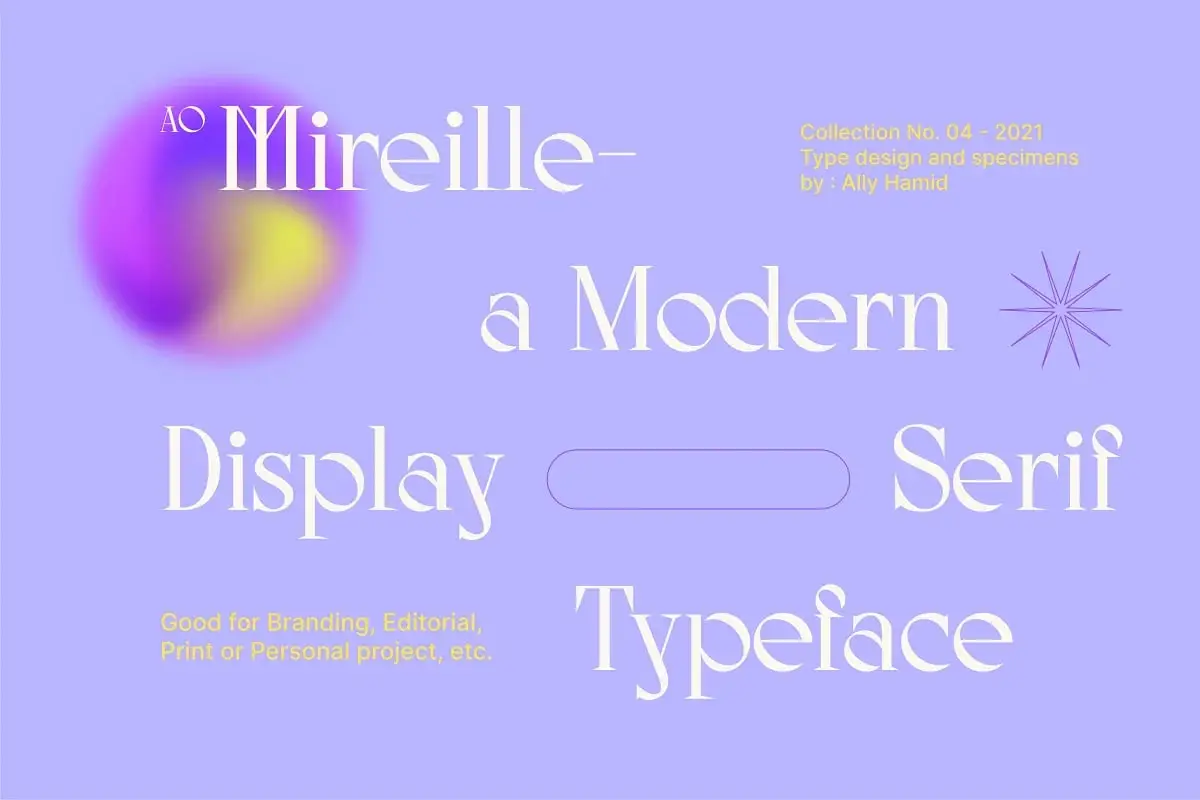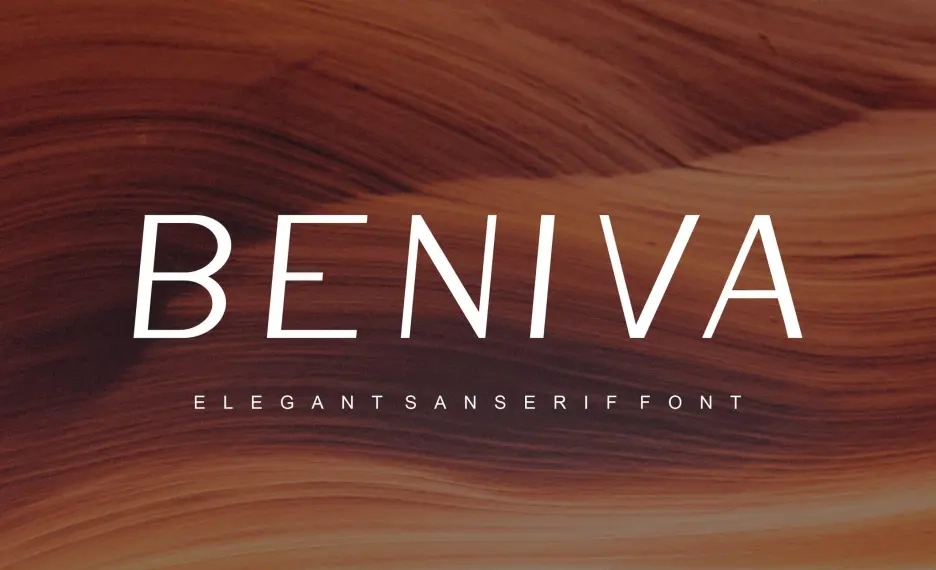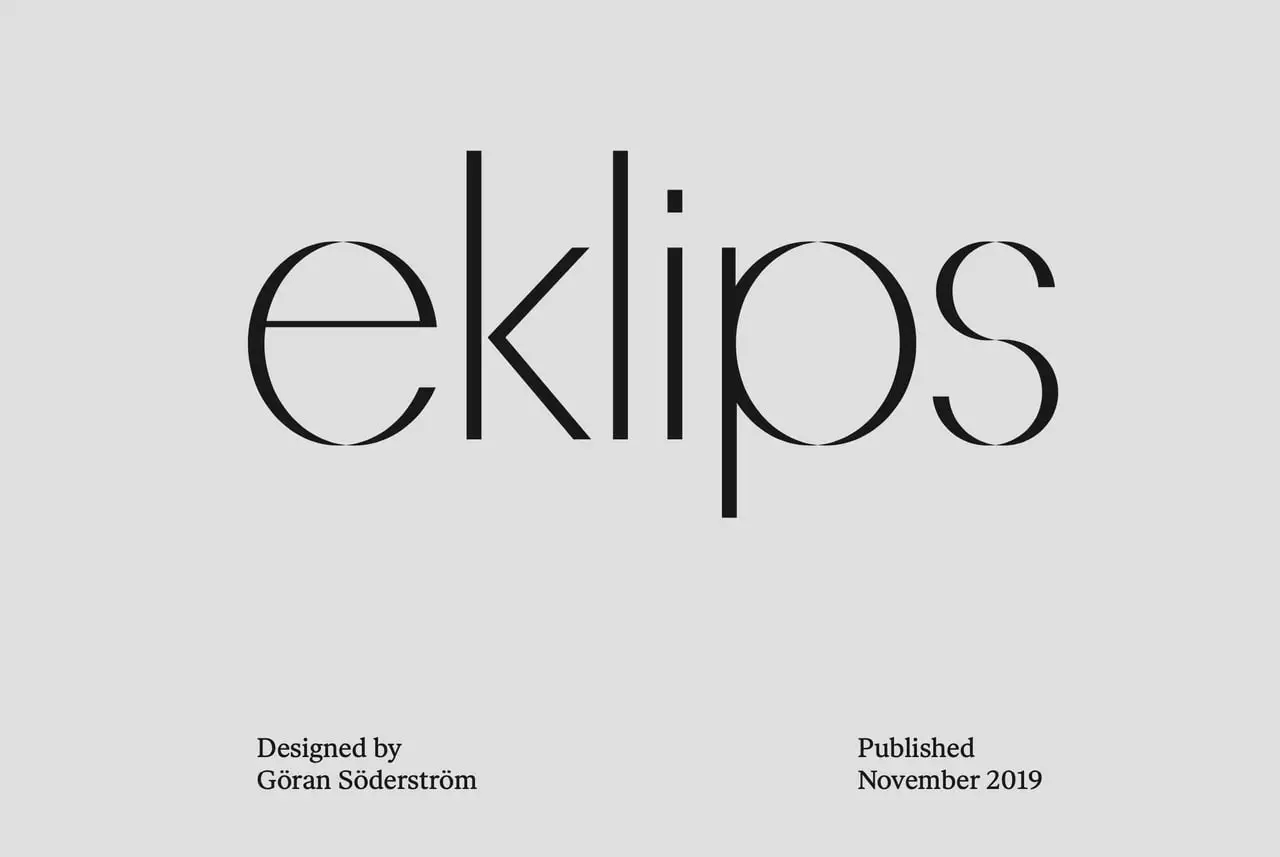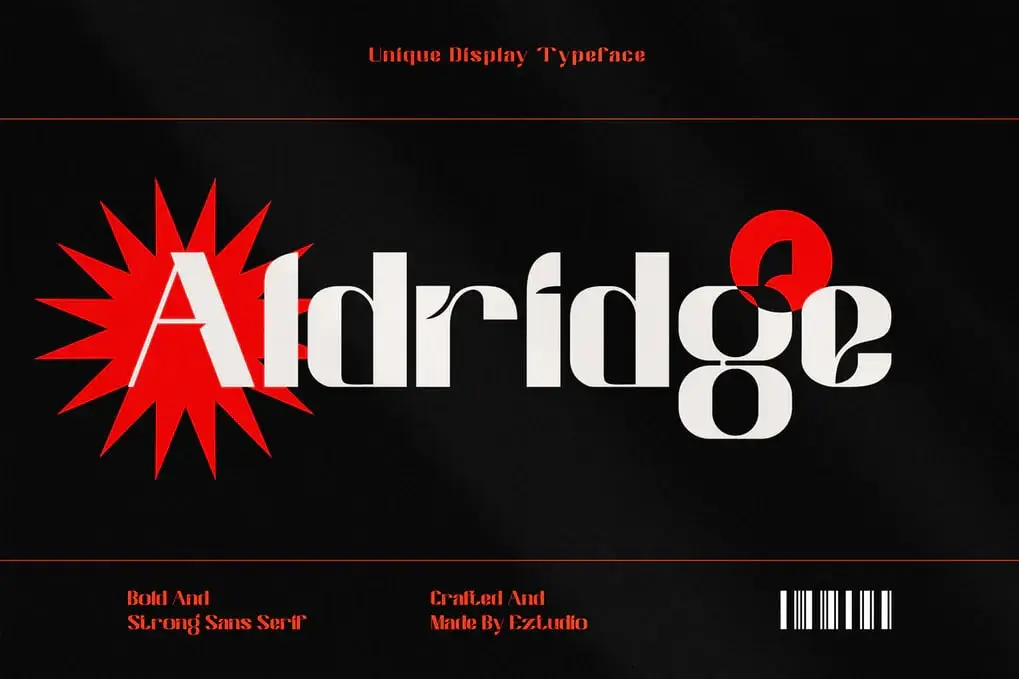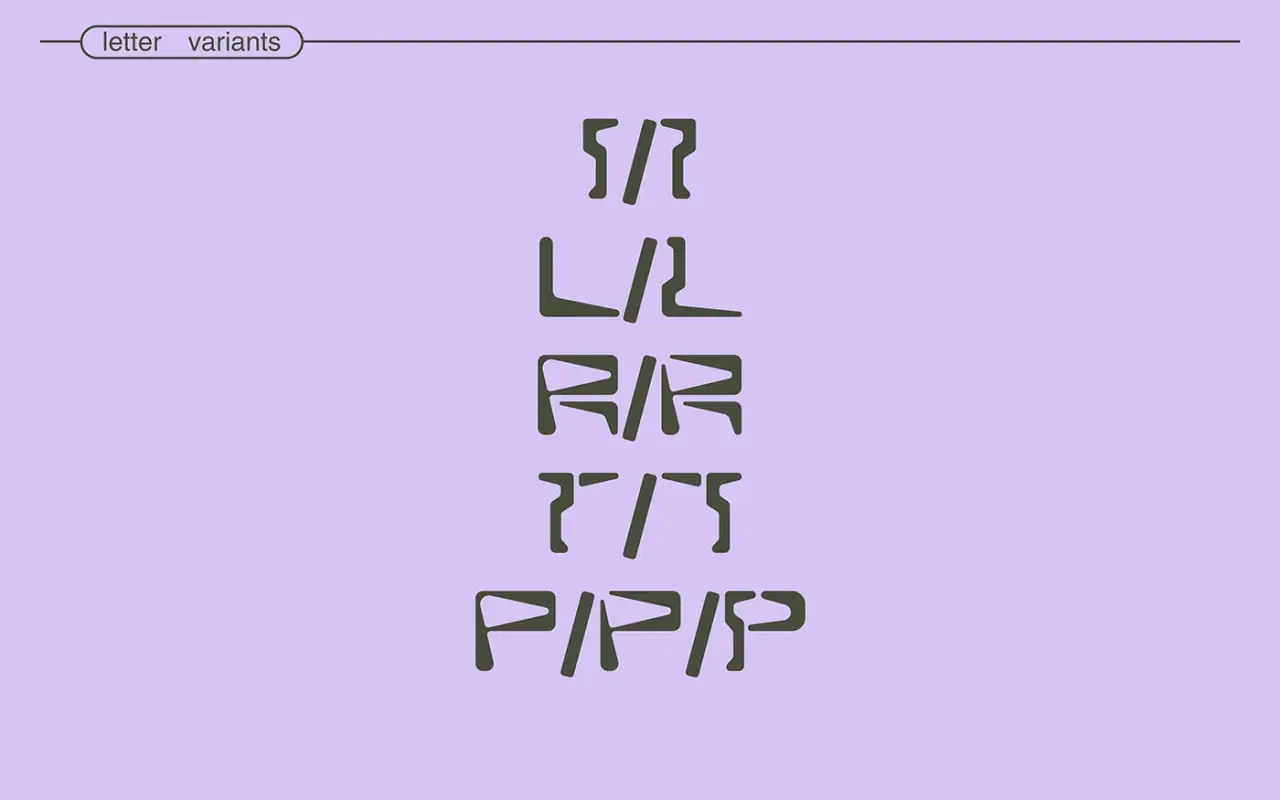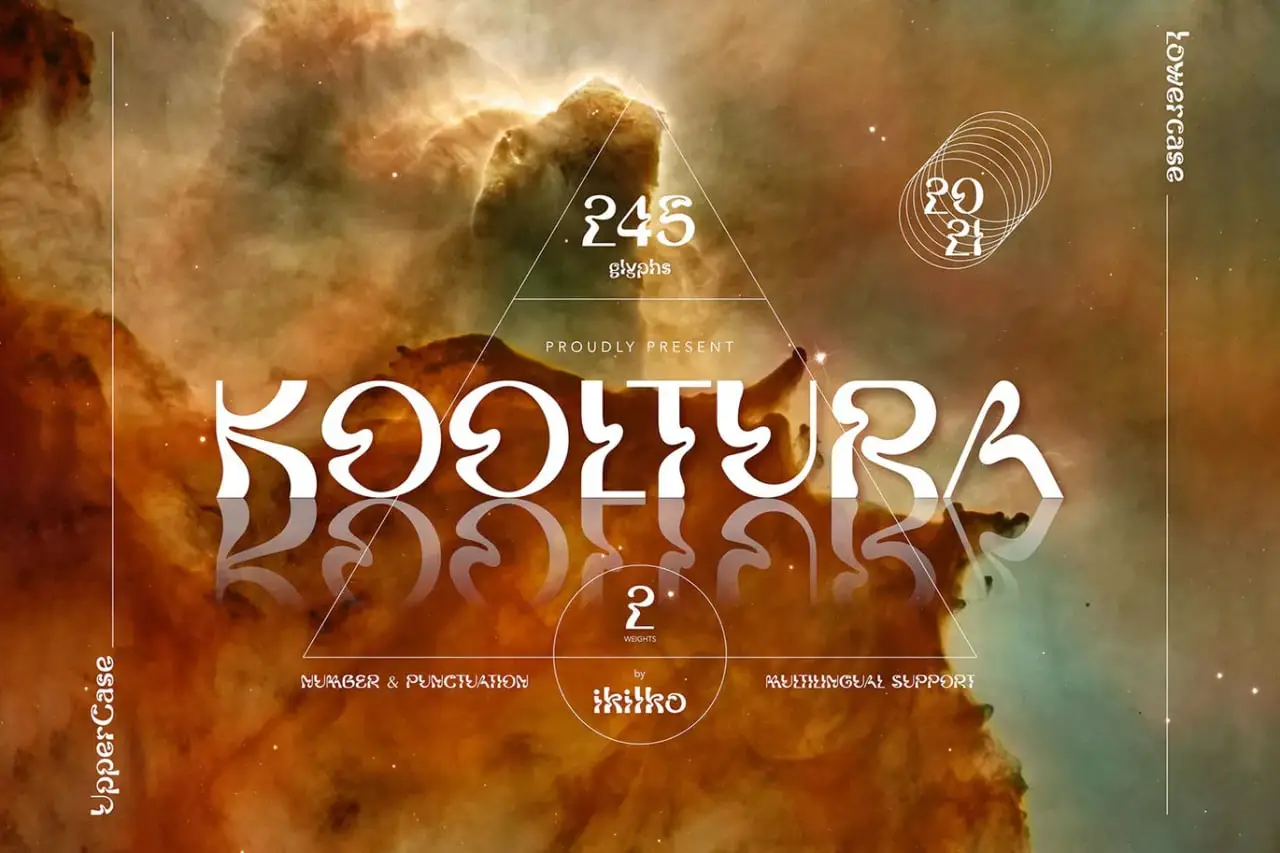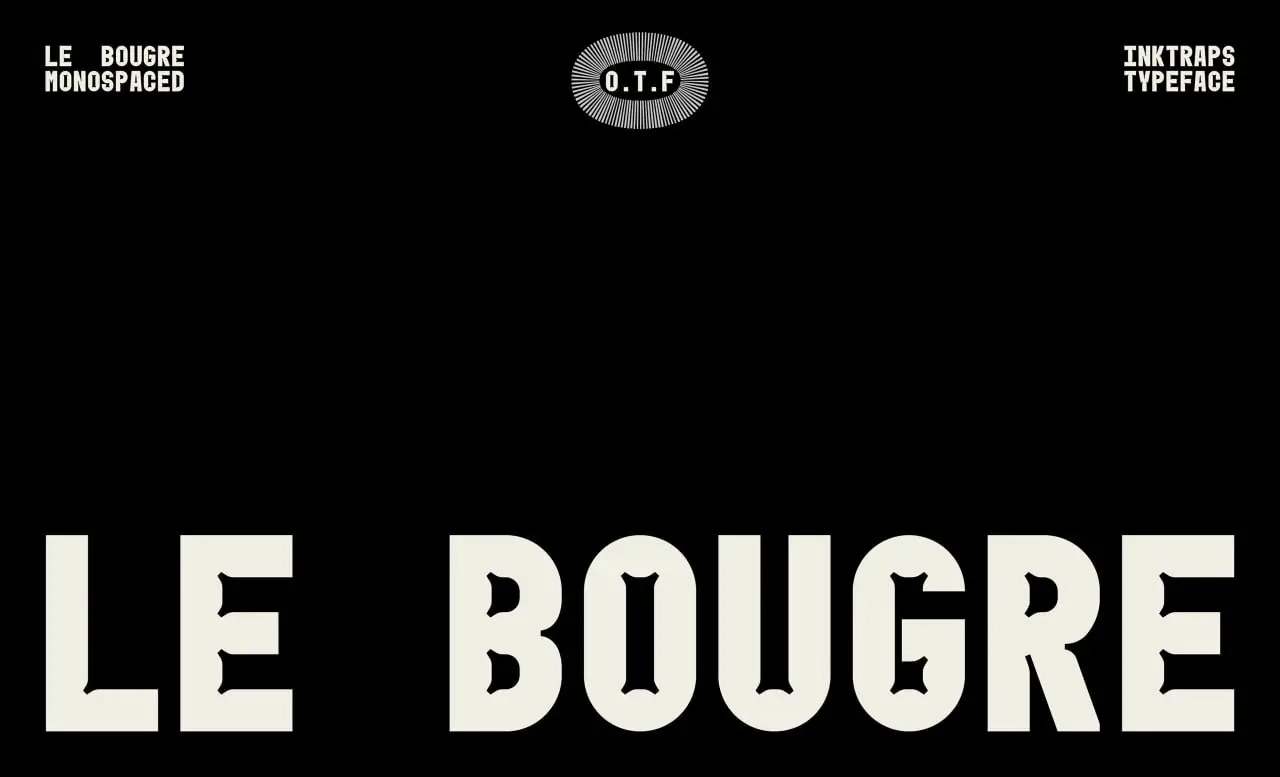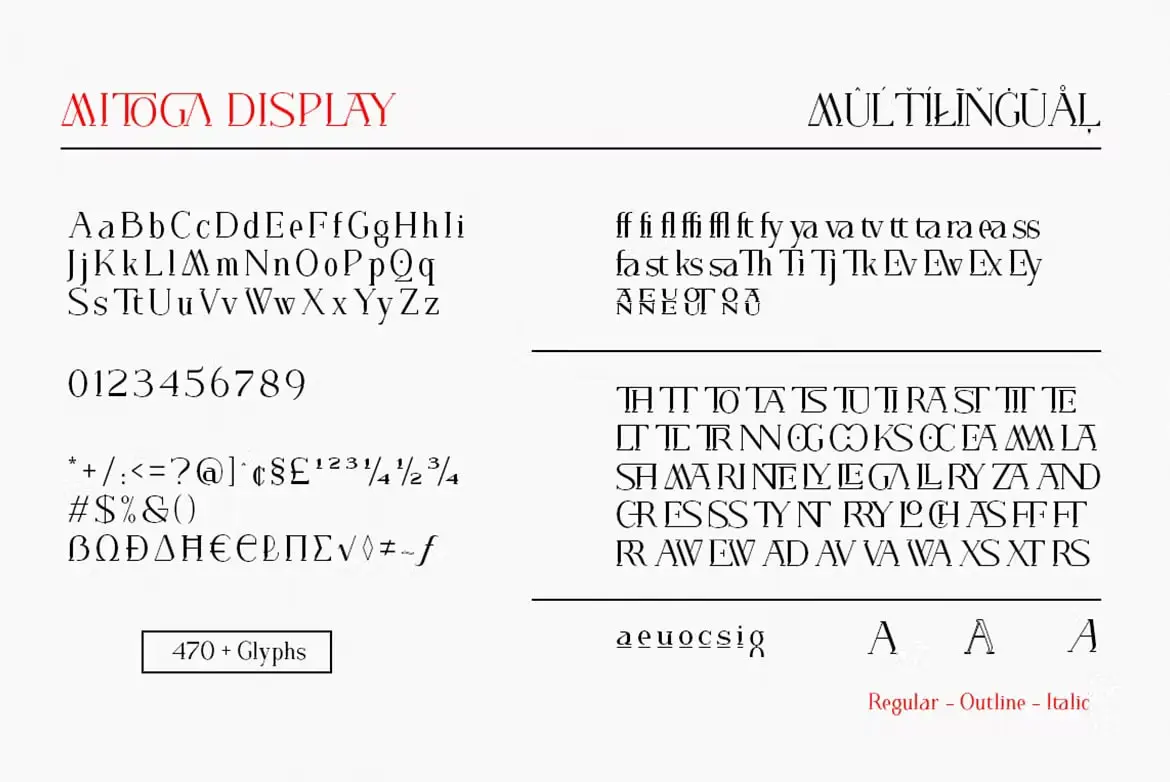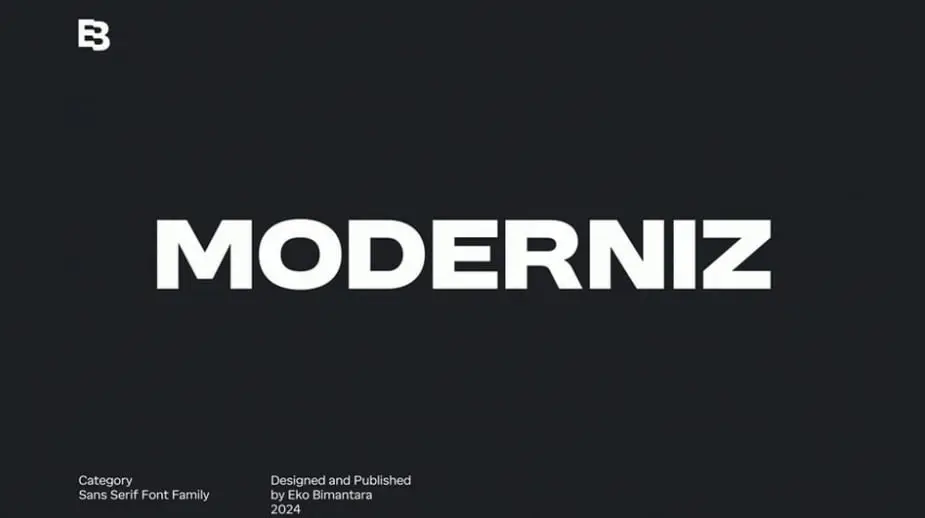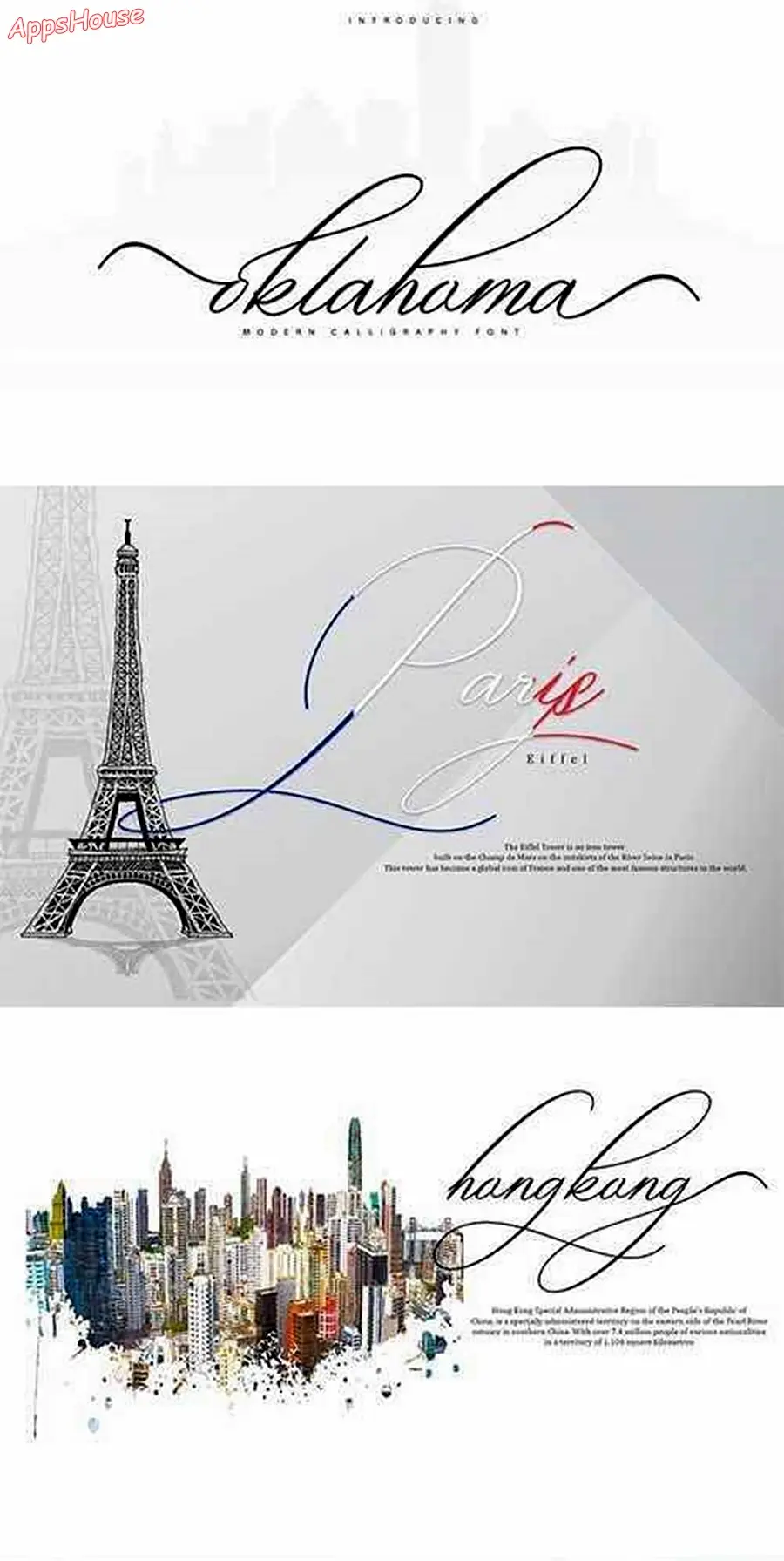
Hey there, fellow creative! 🎨✨ Are you ready to dive into a treasure trove of design goodness? Welcome to Brushespack Collection Part 44, where we’ve curated 20 jaw-dropping fonts and assets that will seriously level up your next project. Whether you’re crafting dreamy wedding invites, building a bold brand, or just adding some flair to your socials, this list has something special for you.
Get ready to scroll through some serious eye candy—from elegant scripts to funky display fonts and even some magical LUTs. Let’s unlock that next level of creativity together. 🚀
Oklahoma Calligraphy Font
Let’s kick things off with pure elegance! 🖋️ The Oklahoma Calligraphy Font is all about flowing curves and sophisticated charm—perfect for dreamy wedding invites or classy branding that needs a personal touch.
Ezstudio Unique Display Font Aldridge
Need something bold and unforgettable? 💥 Aldridge is a unique display font with serious personality—perfect for headlines, logos, and anything that needs to grab attention instantly.
Bluebell-Calligraphy Font
Meet the Bluebell Calligraphy Font—your new best friend for elegant design. 🌸 This flowing script is perfect for greeting cards, branding, and anything that needs a touch of grace.
Beniva Sq9R73Z
Versatility alert! 🌀 Beniva Sq9R73Z is a top-tier digital asset with high-resolution files and formats that work wonders for any creative project—from banners to social posts.
Le Bougre By Max Valcheux
Le Bougre has so much character, it practically hops off the page! 🐇 Designed by Max Valcheux, this unique typeface brings a playful yet contemporary vibe to logos and digital content.
Jxlyn-Adapt
Jxlyn-Adapt is the ultimate flex—customizable components that mold to your vision. 🛠️ Whether you’re working on UI or branding, this asset kit is a workflow powerhouse.
Kooltura Psychadelic Type
Groovy, baby! ✌️ The Kooltura Psychadelic Type is a vibrant, artistic font that’s perfect for festival posters, album art, or any design that needs a dose of retro cool.
Greed Typeface
Greed Typeface is modern, bold, and oh-so-stylish. 💎 With regular, bold, and italic variants, you’ve got everything you need for killer branding and promo materials.
Xdcreative-Bellaxio Sans Font
Clean, crisp, and incredibly readable—Bellaxio Sans is the modern sans-serif you didn’t know you needed. 📐 Ideal for web design, logos, and print that demands clarity.
Nokta-Inverted Luts & Filters
Elevate your video and photo editing with these professional-grade LUTs. 🌈 Nokta-Inverted adds a striking, cinematic vibe to any project—perfect for creators who love moody, artistic color grading.
Roslindale Cyrillic 2 0 Font By David Jonathan Ross
A stunning blend of modern and traditional Cyrillic script! 🇷🇺 David Jonathan Ross brings us this versatile beauty, perfect for international branding or adding an exotic flair to your designs.
Mitoga Display
Mitoga Display is a head-turner! 👀 With its distinctive style and multiple weights, it’s perfect for advertising, editorial layouts, and anything that needs to make a statement.
Moderniz Font
Sleek, contemporary, and packed with special characters—Moderniz Font is the minimalist’s dream. 🖤 Use it for logos, web design, or any project that screams “modern luxury.”
Eklips Font Family
A whole family of fonts? Yes, please! 🎉 The Eklips Font Family comes in multiple weights from light to bold, giving you endless possibilities for both print and digital projects.
Arogant – Artsy And Classy Serif
Arogant lives up to its name—artsy, classy, and undeniably elegant. 🌿 This serif font is perfect for high-end branding, editorial design, and adding a touch of sophistication.
2600 Pxl Fnt Collection By Legacy Of Defeat
Pixel-perfect nostalgia! 🕹️ This collection of pixel fonts is a gamer’s dream—ideal for retro-themed designs, game UIs, and anything that needs that classic 8-bit charm.
Ao Mireille-Display Typeface
Elegance meets modern vibes! 🌸 Ao Mireille Display Typeface is crafted with delicate details and distinctive character—perfect for fashion branding, invitations, or gorgeous headers.
Made Dillan
Made Dillan is the creative chameleon you need! 🦎 These high-quality digital design files are super easy to customize, making them perfect for branding, social media, and beyond.
Tempe!